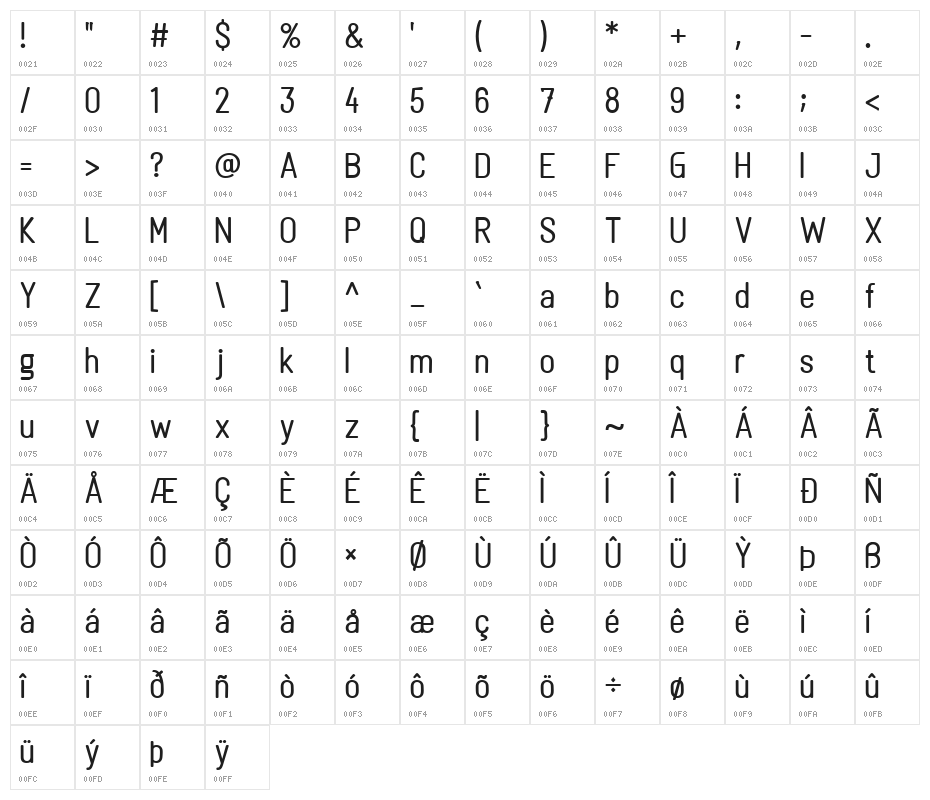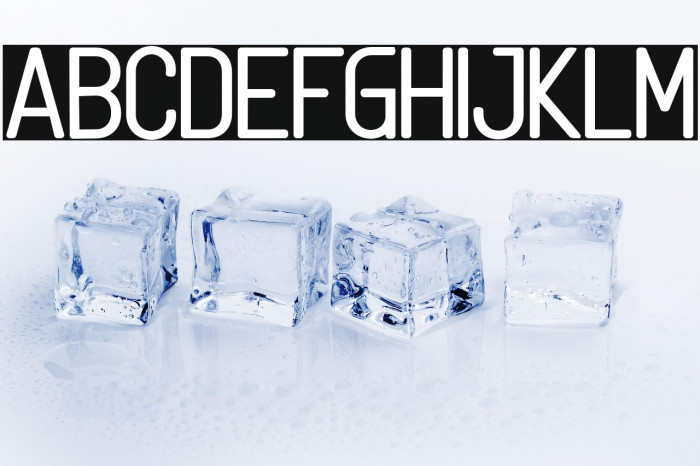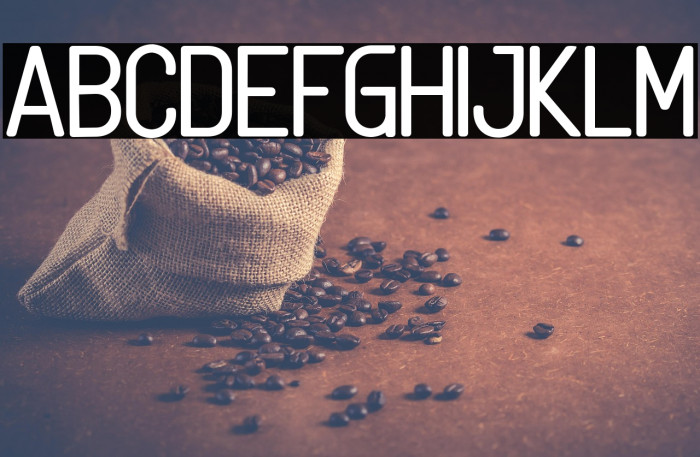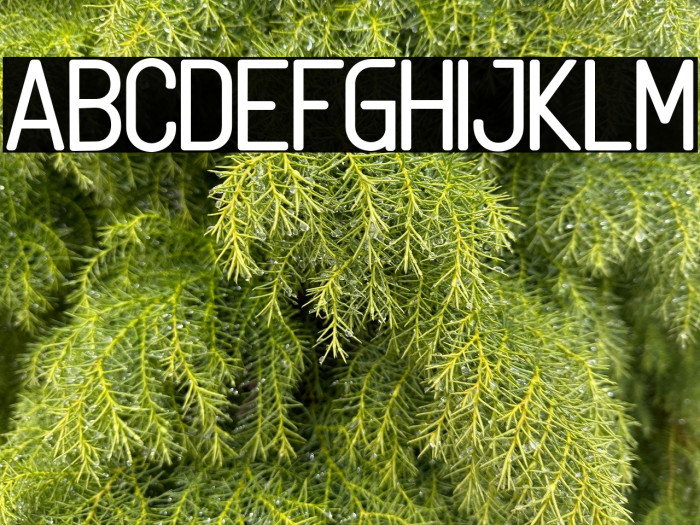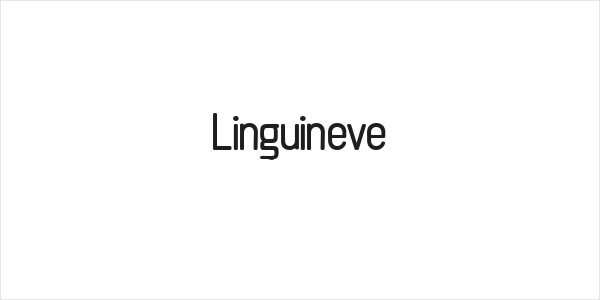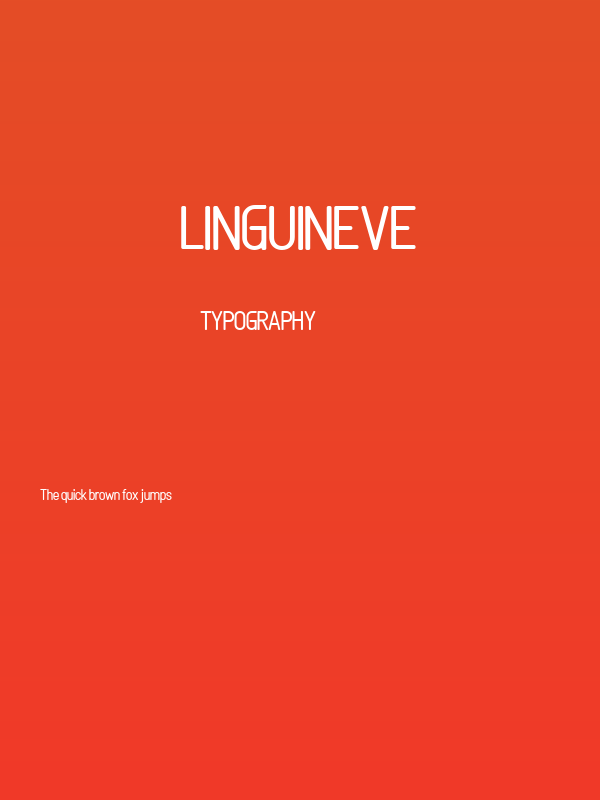
Linguineve Font
Linguineve Description
This font features a clean, modern sans-serif style with rounded edges that give it a friendly and approachable appearance. The characters are evenly spaced, contributing to its readability. The uppercase letters are bold and assertive, while the lowercase letters maintain a consistent height, enhancing uniformity. The numerals are clear and distinct, making them suitable for various applications. Special characters are well-defined, adding versatility to the font's use. Its simplicity and clarity make it ideal for digital and print media, ensuring legibility across different sizes and formats.